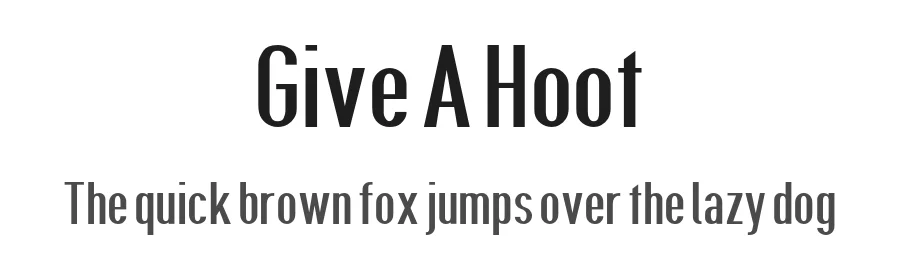
About Tincushion Font
My take on a "serious" font including all diacritics marks I can think of, Greek and Russian Cyrillic. (2001-2015) Regular + Light
| Designer | VÃt ÄŒondák |
Tincushion ships with 2 OpenType features you can switch on in apps that support them (Illustrator, InDesign, Affinity, Figma, CSS font-feature-settings).
- Historical forms
Tincushion supports 300 languages.
Tincushion Font is a versatile sans-serif font that works for both headings and body text. Pair it with a contrasting serif or slab serif font to add visual interest and a clear distinction between titles and body copy.